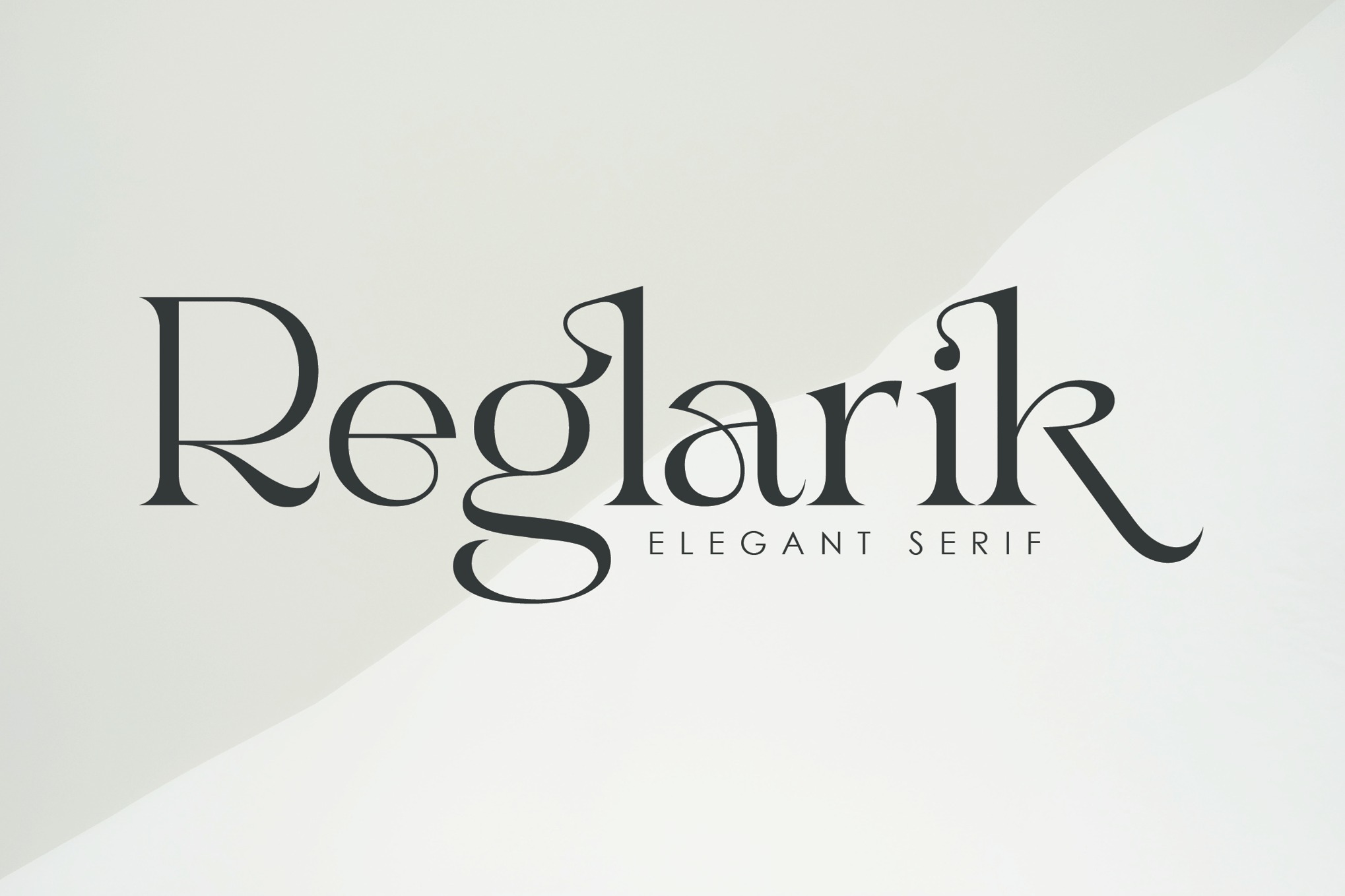
Reglarik – Elegant Serif Font
Reglarik – Elegant Serif Font is a premium-quality font developed to enhance your work with a polished, modern, and visually elevated look. Reglarik font is designed to deliver a strong and versatile visual character, balancing aesthetics and readability. Every detail is carefully crafted to ensure a clear, consistent, and visually appealing result across a wide range of design needs.
With well-structured letter proportions and support for features such as alternate characters and ligatures, this font allows for greater creative exploration. The final result is dynamic, distinctive, and professional, making it adaptable to various design styles.